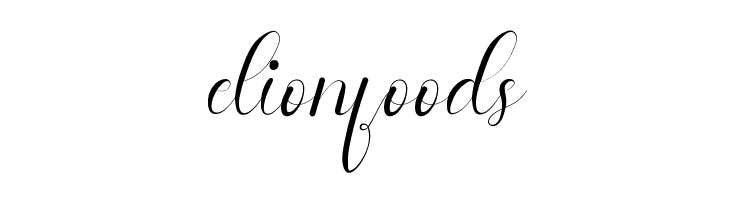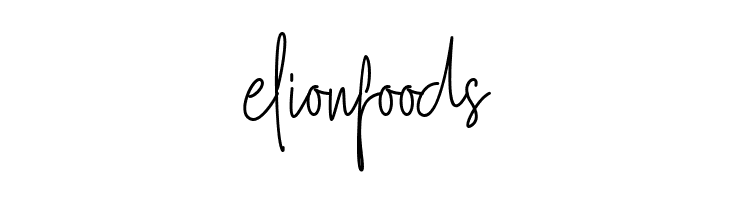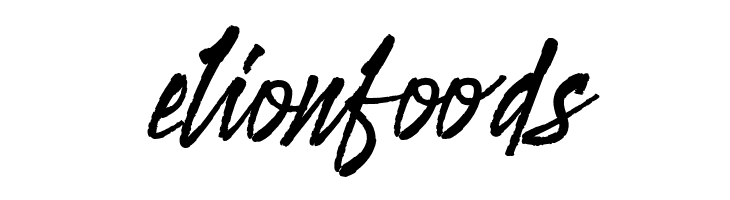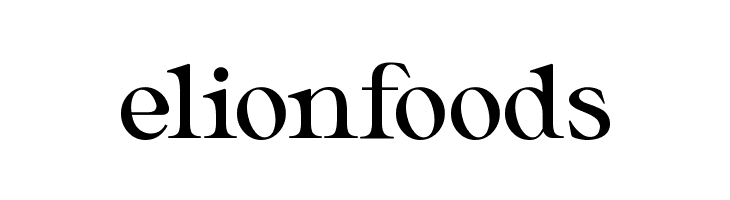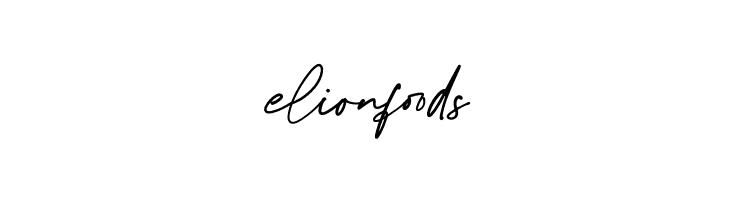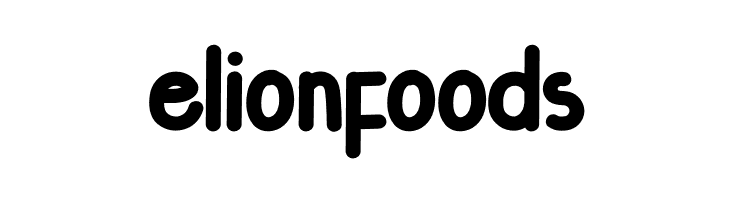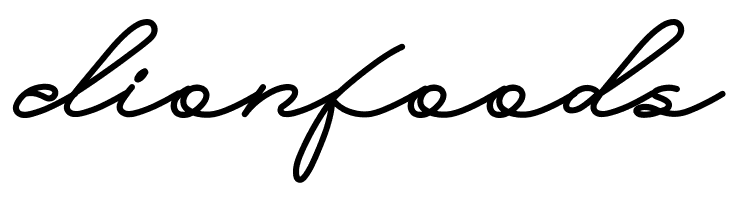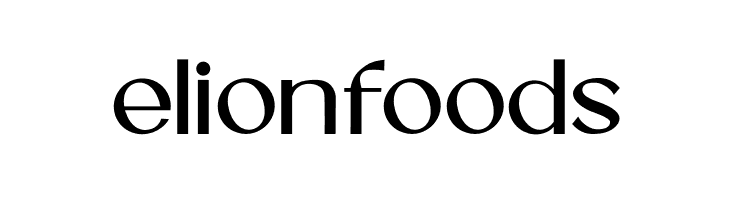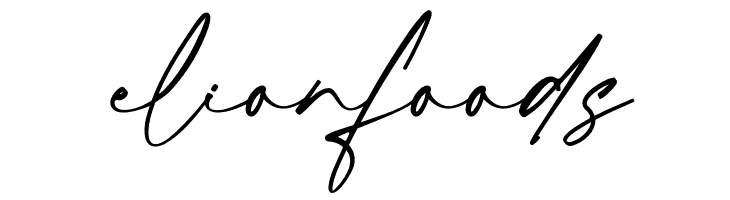
A playful, bold font with rounded edges and a bubbly appearance.
A playful, handwritten font with fluid strokes and a casual, friendly style.
A playful, casual handwritten font with flowing, connected letterforms.
An elegant script font with intricate swashes and a calligraphic style.
Modern sans-serif font with geometric shapes.
Elegant and flowing script font.
A classic serif font with elegant strokes and medium contrast, perfect for traditional and refined designs.
A bold, cursive brush script font with dynamic and fluid strokes.
A fluid, handwritten script font with elegant, connected characters.
A cursive, handwritten font with elegant, flowing characters and bold lowercase letters.